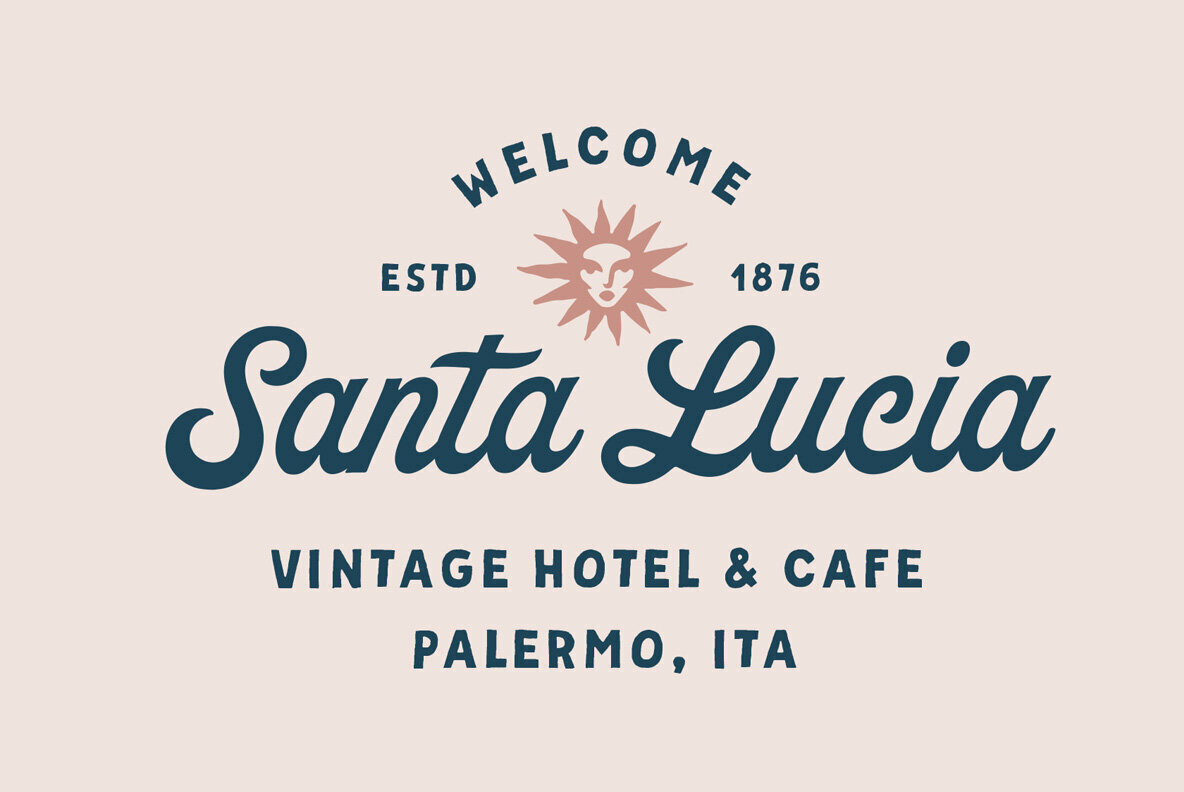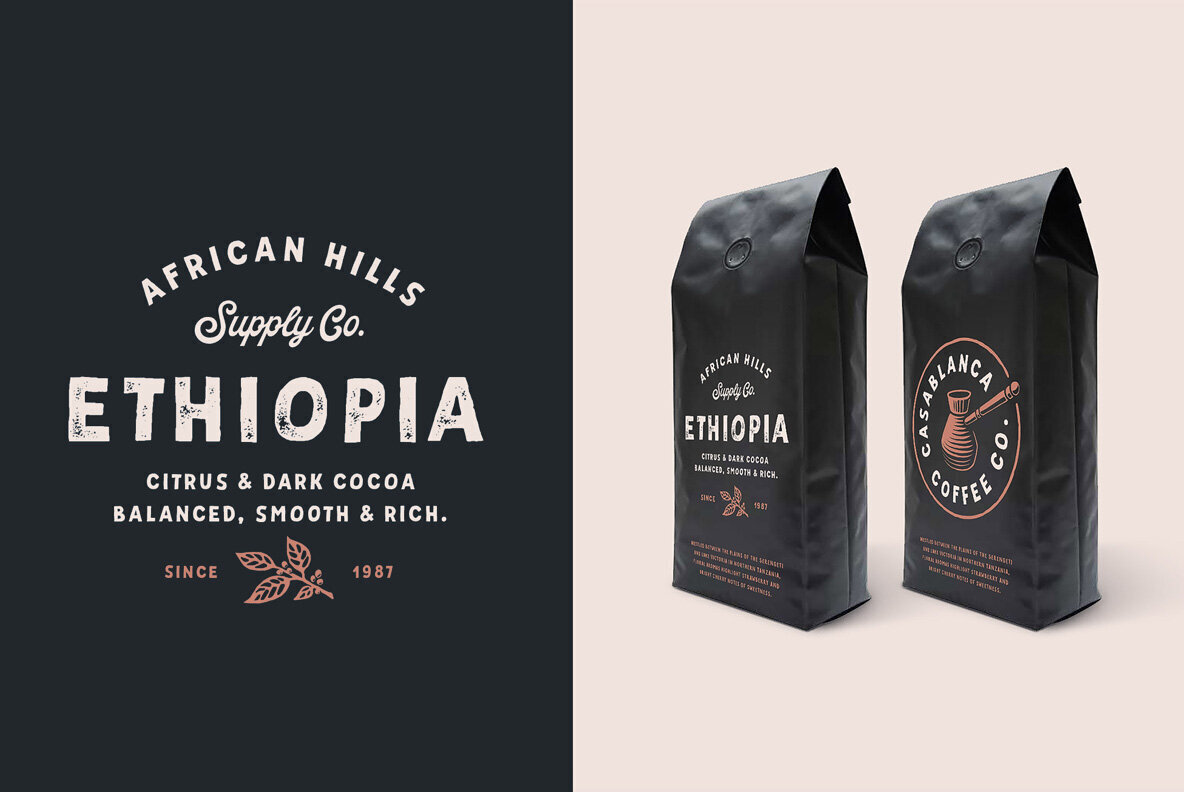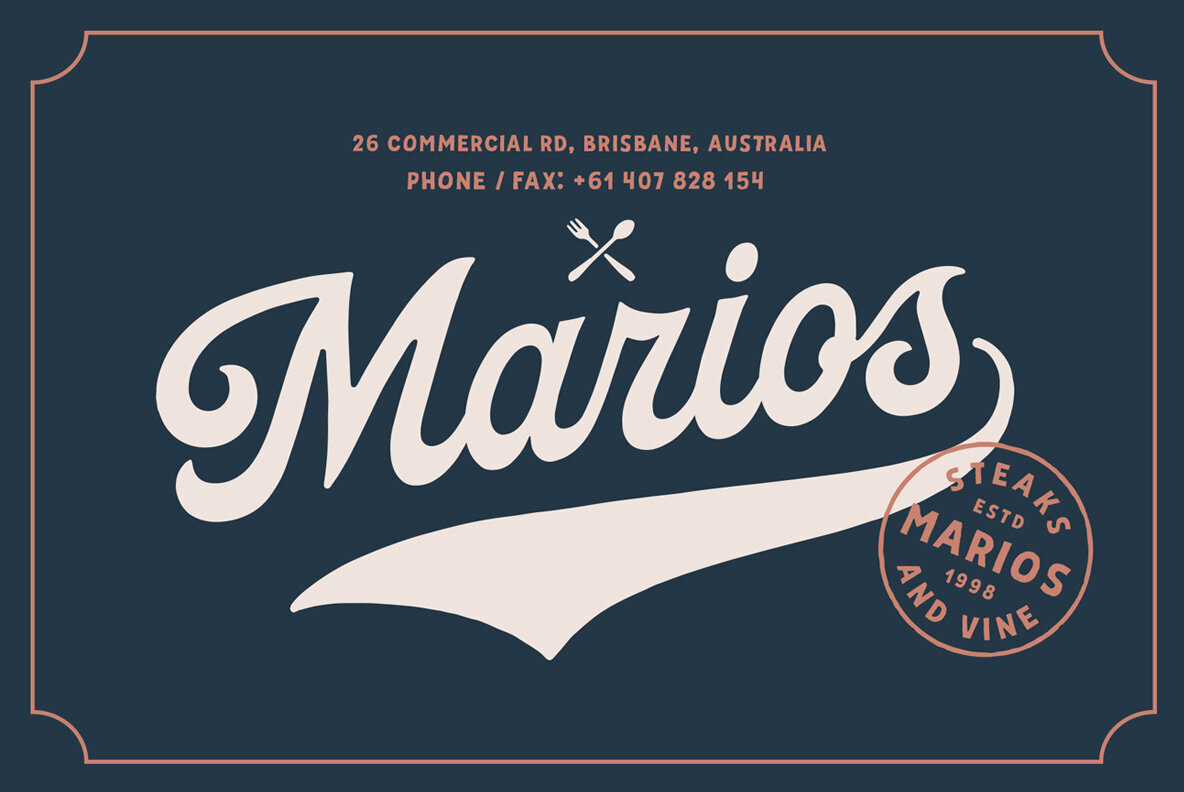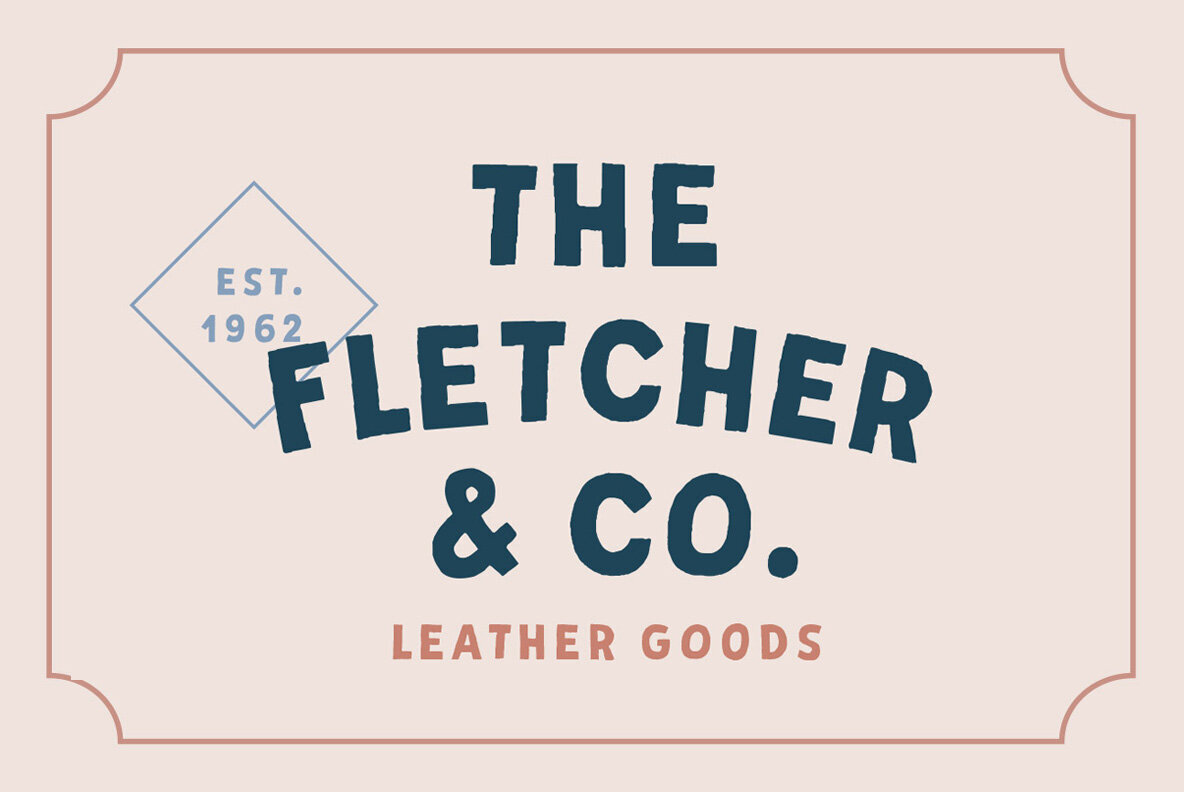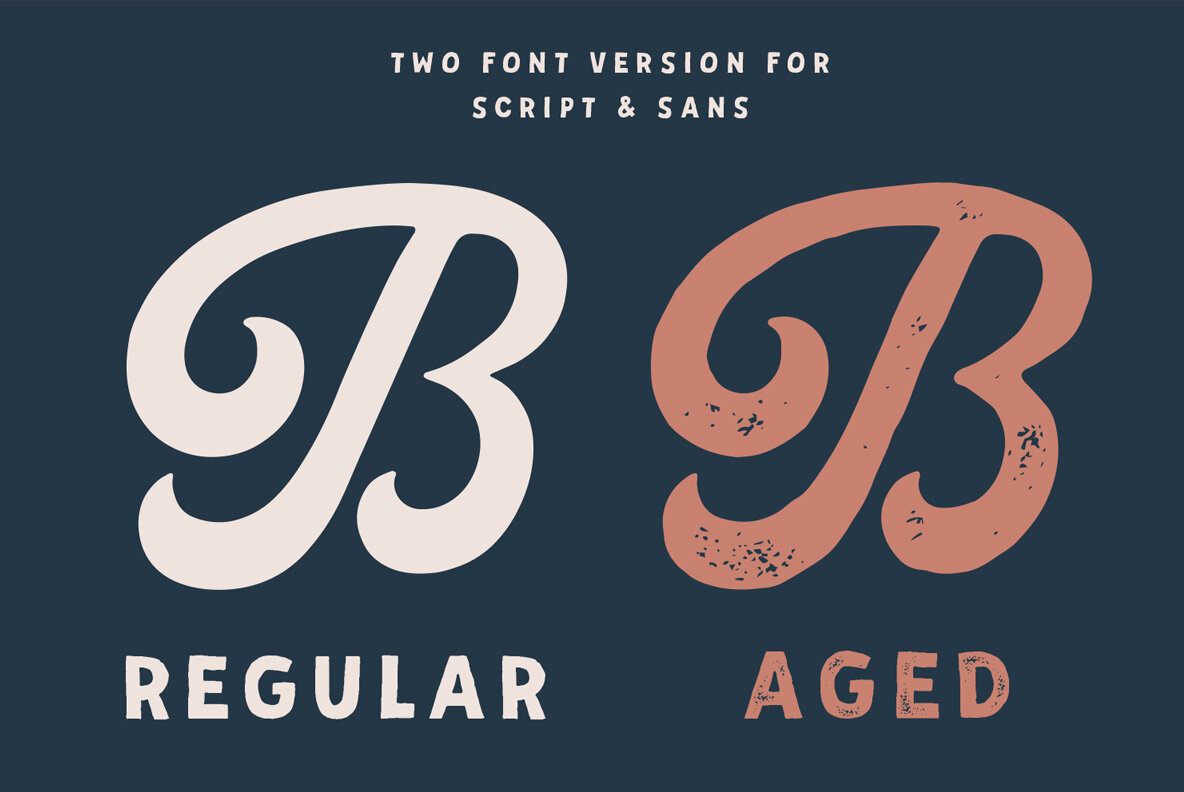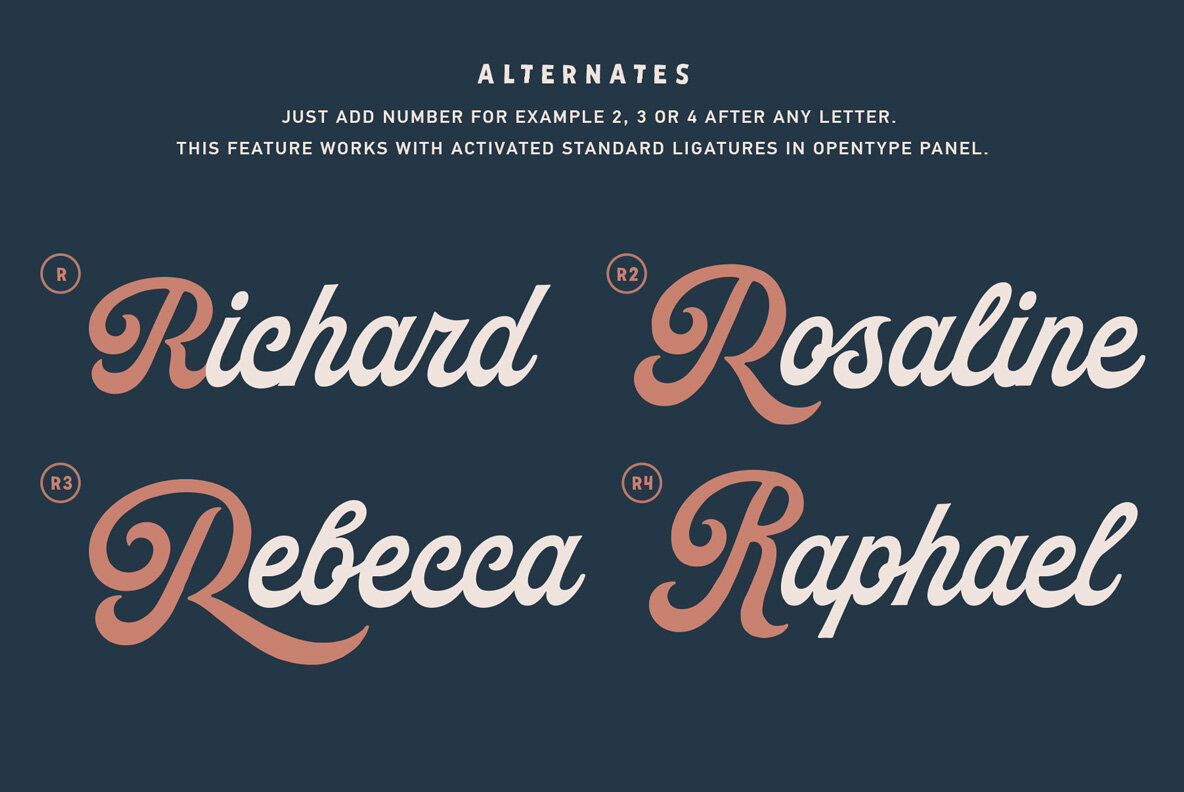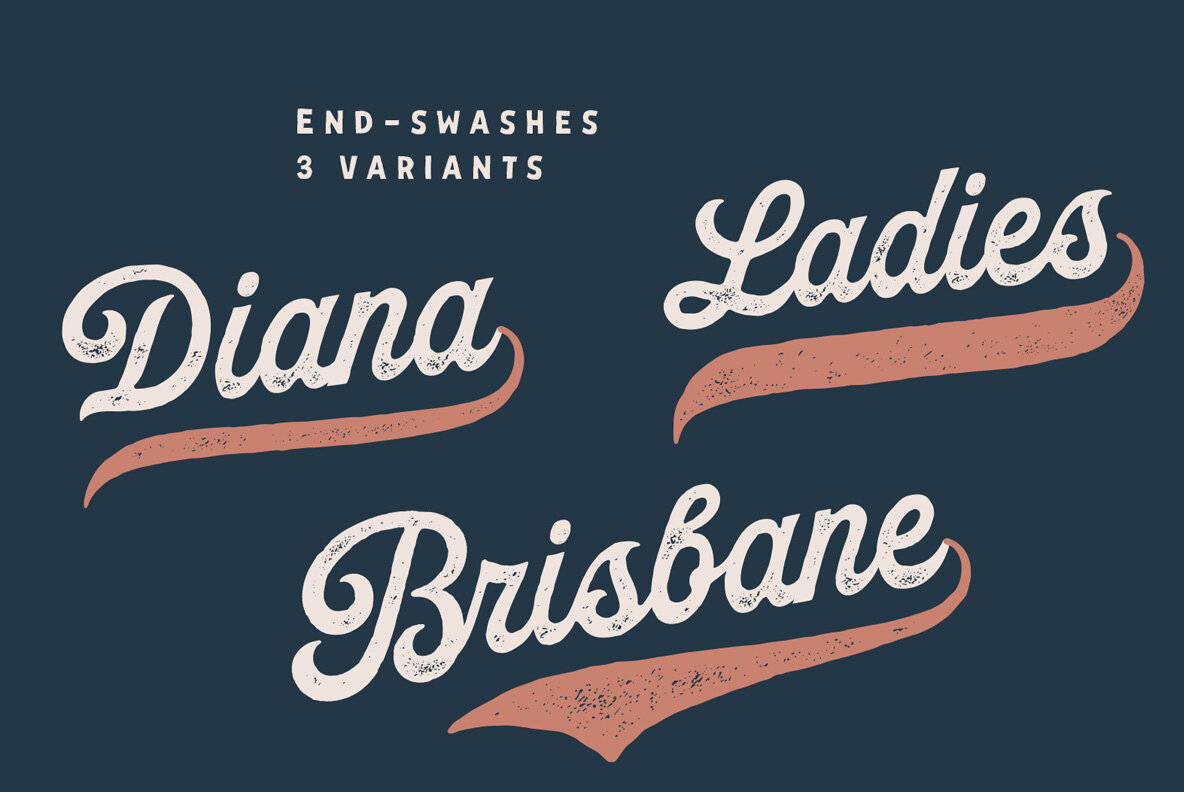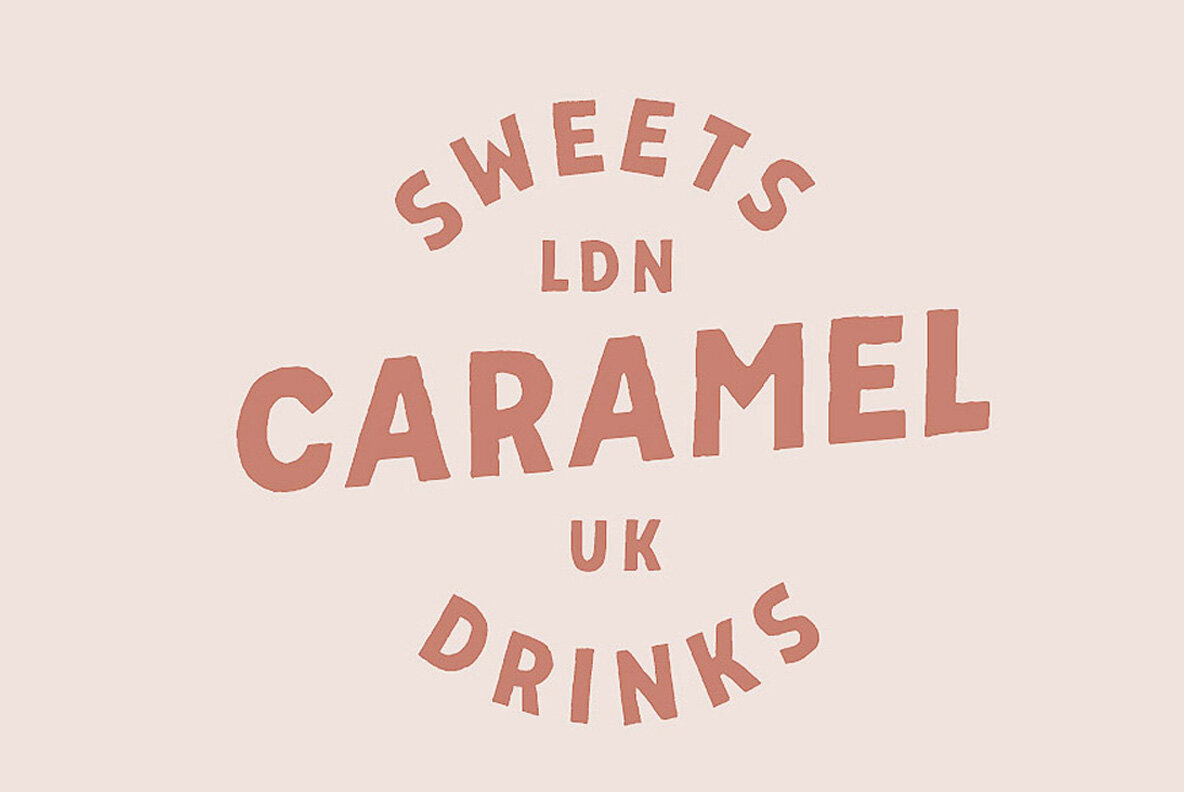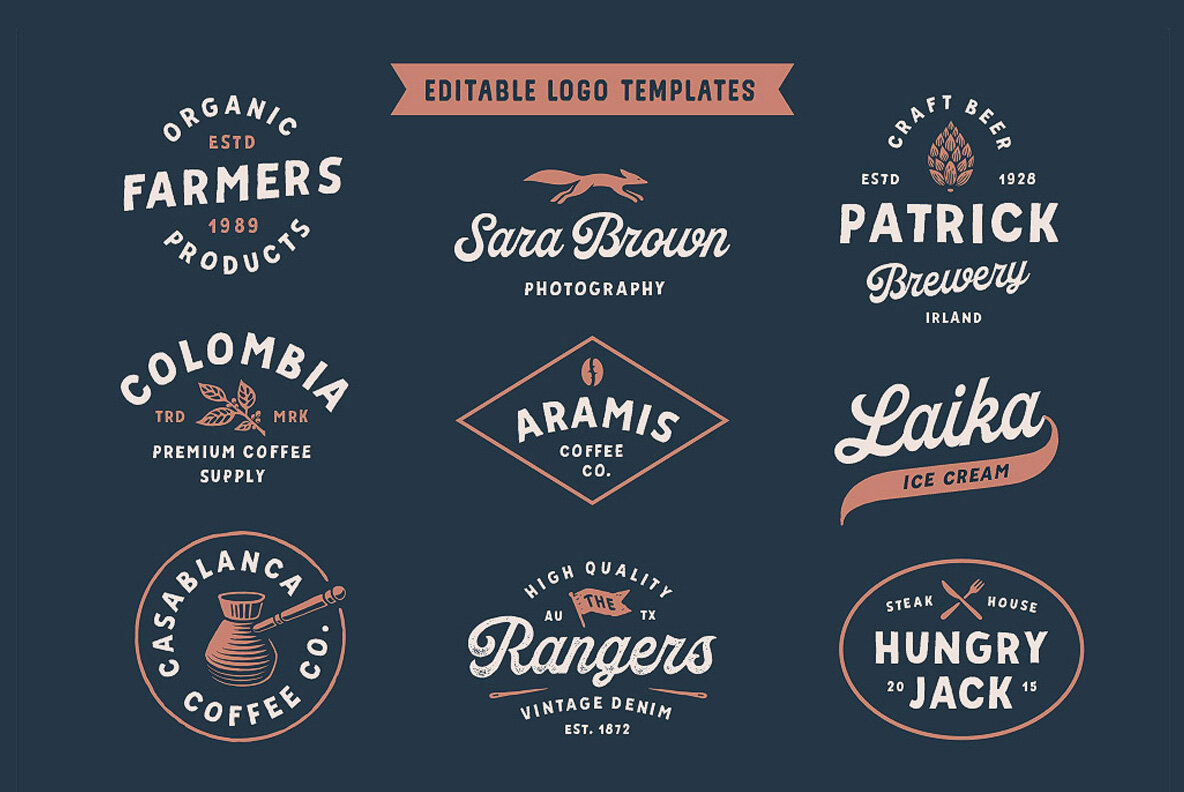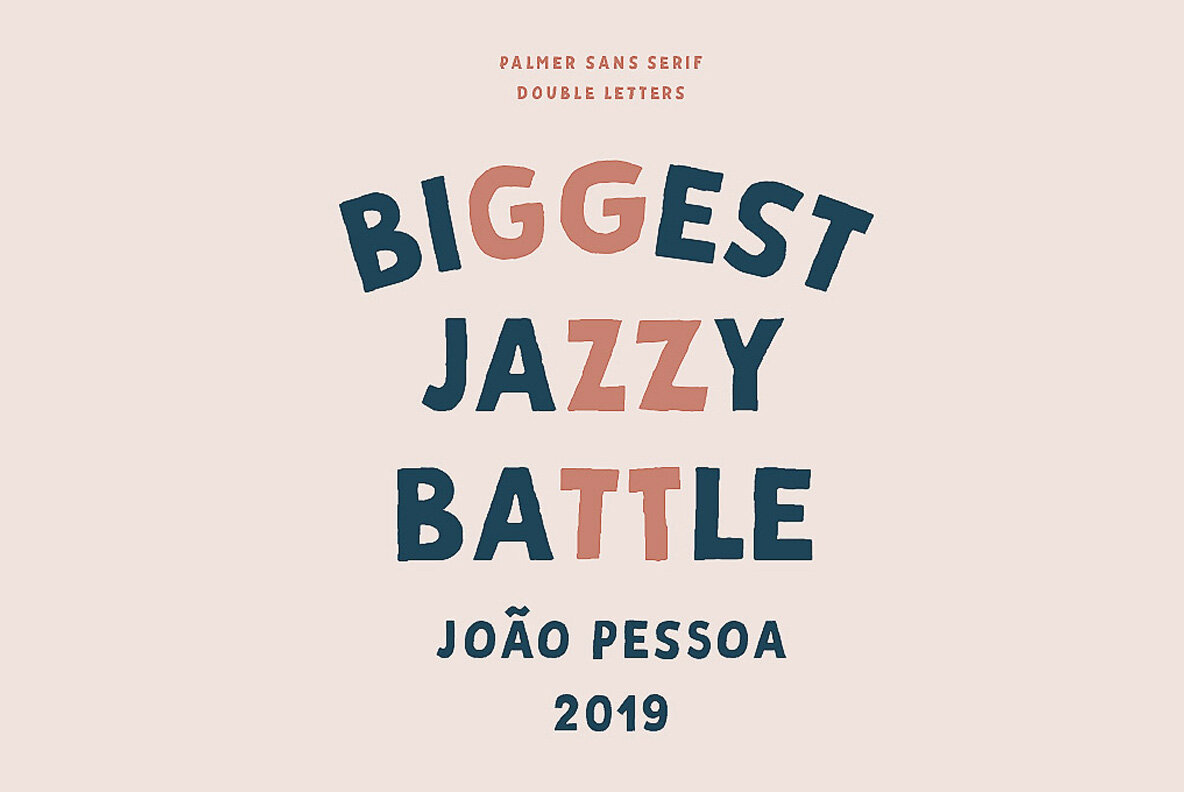
Palmer Font
Palmer Fonts and Extras Set (4 fonts)
Palmer Sans Serif
Palmer Sans Serif Aged
Palmer Script
Palmer Script Aged
This pair was inspired by the spirit of the past, when manual labor was common, and technology was just beginning to develop. It was crafted by hand specially for traditional typography lovers and anyone who want to add natural handmade feeling in its brand identity. It comes with Regular and Aged versions that expands its possibilities in use.